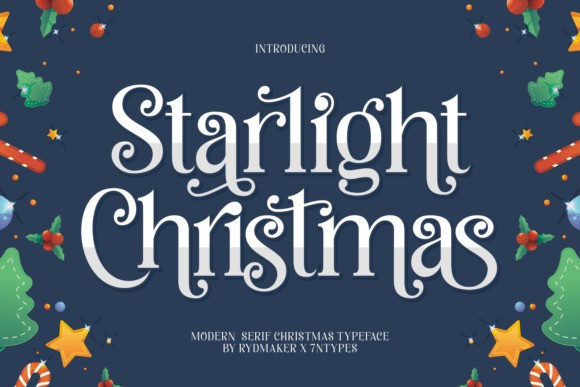
Starlight Christmas Font
Designer: Rydmaker (7NTypes)
Starlight Christmas Font is a modern serif typeface designed to bring elegance and festive charm to your holiday projects. With smooth curves and stylish swashes, this font is perfect for Christmas cards, seasonal branding, elegant packaging, and winter event promotions. Its classic and whimsical touch evokes a cozy and magical holiday mood, making the Starlight Christmas Typeface a go-to choice for designers wanting to elevate their festive creations.